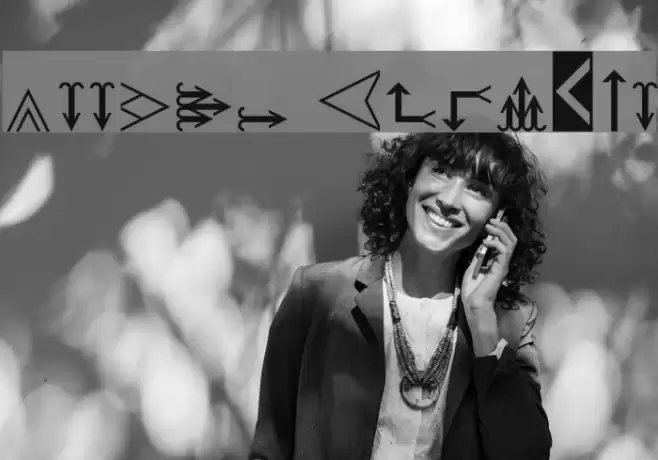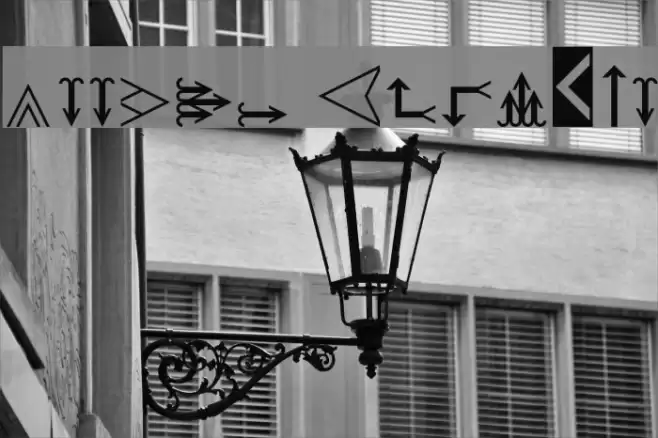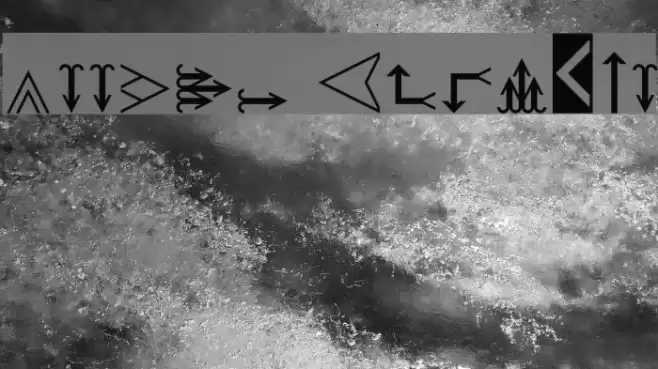
Arrows Regular Font
Arrows Regular Description
This is a decorative font composed entirely of various arrow designs. Each character is uniquely crafted to represent a different style of arrow, ranging from simple lines to complex geometric shapes. The font includes a wide variety of arrowheads, tails, and body styles, offering a diverse set of visual elements. The characters are bold and striking, making them suitable for attention-grabbing designs. The numbers are integrated with arrow elements, adding a unique twist to their appearance. This font is ideal for projects that require directional or navigational themes, providing a creative way to incorporate arrows into text.
A decorative font featuring a diverse array of arrow designs for each character from Uncategorized fonts.
- Proposed Projects: Ideal for signage, infographics, maps, and creative design projects that require directional elements.
- Use Case: Logos, Headlines, Signage